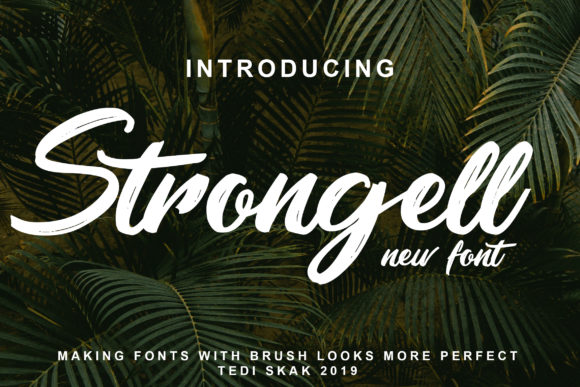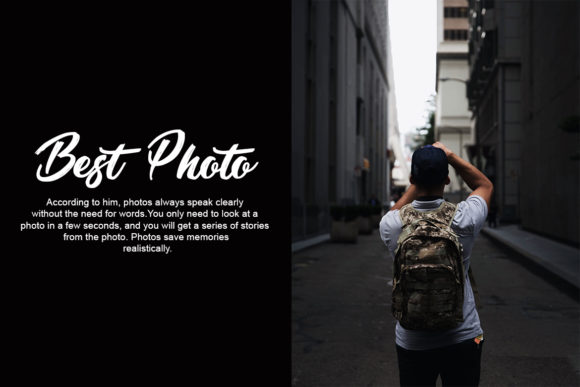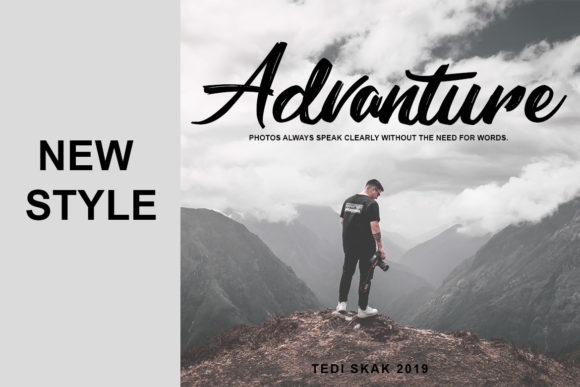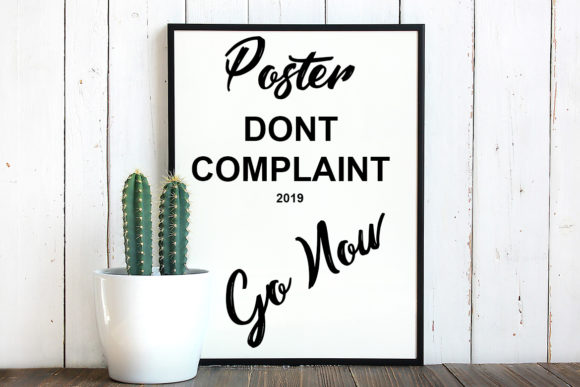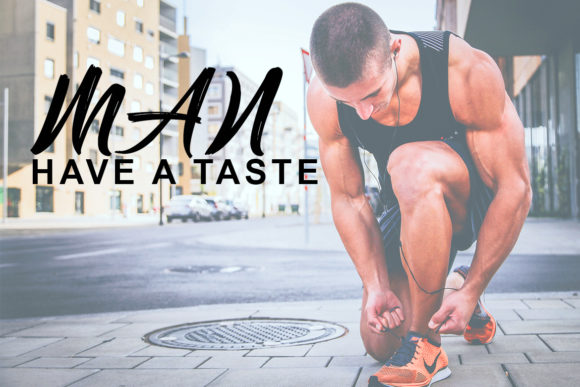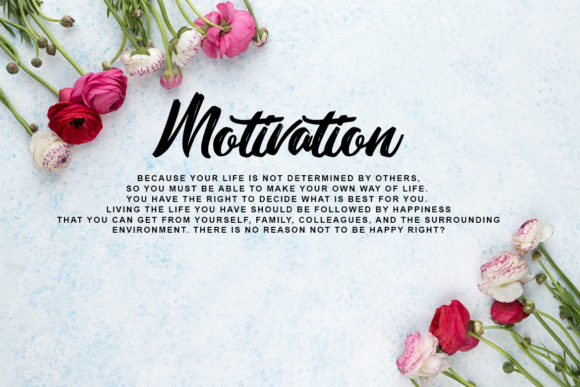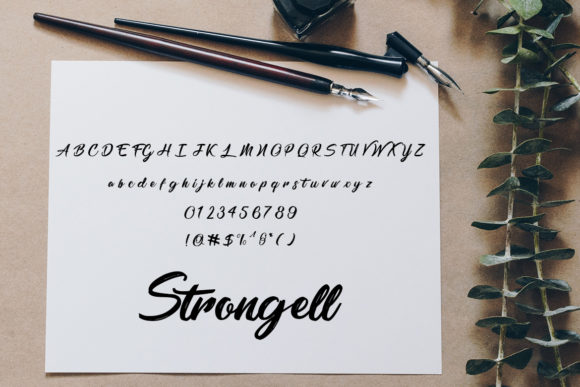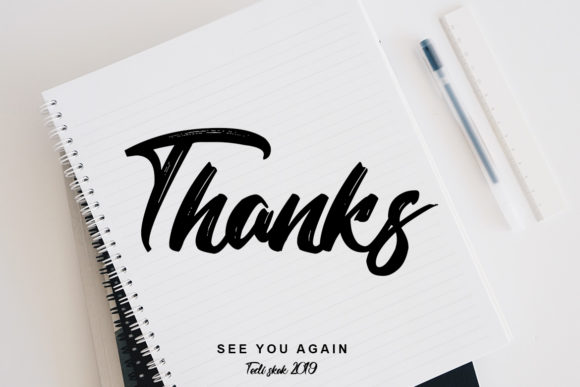
Setrongell Font
About Setrongell Font
Setrongell is an amazing and beautiful handwritten font with heaps of personality! It will add a unique spark to any design idea